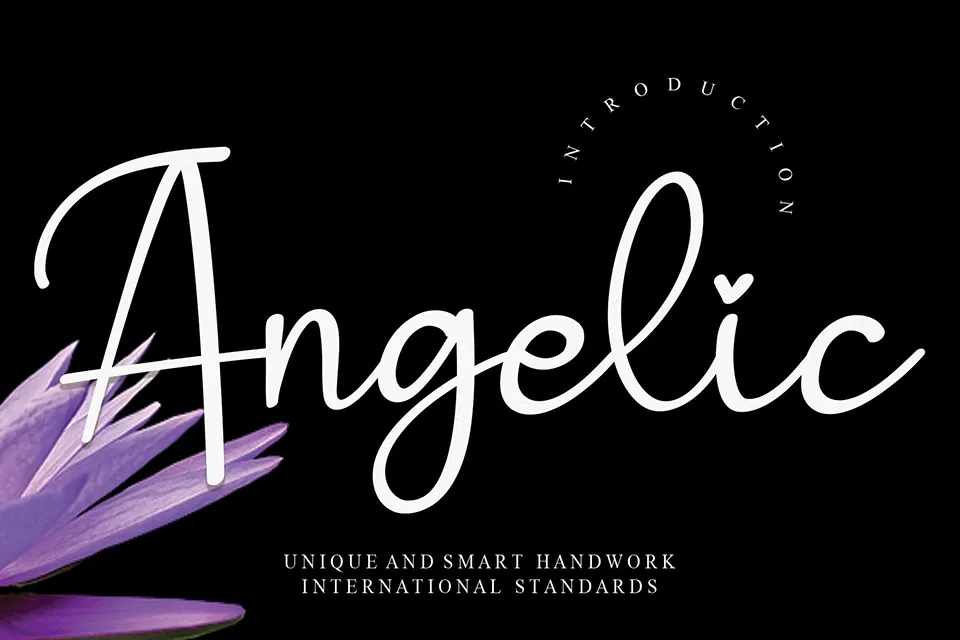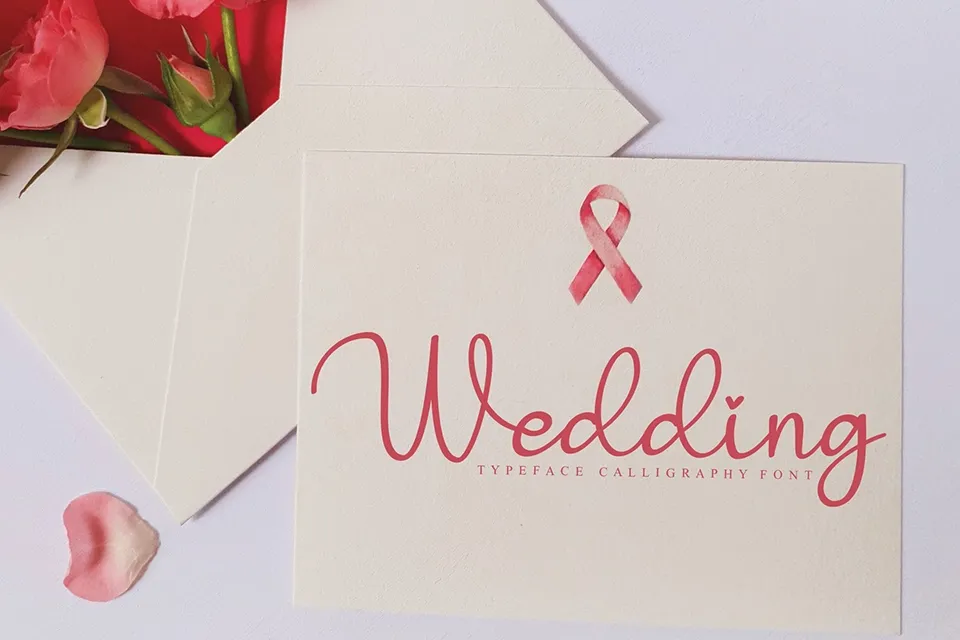
Angelic Handwritten Font
The Angelic Handwritten Font is a swirly and elegant script typeface that brings a natural, stylish flair to any project. Perfectly balanced and varied, it’s ideal for books, magazines, invitations, marketing materials, branding, packaging, websites, posters, logos, titles, and more. With graceful curves and impeccable letterforms, this font adds a delightful, enchanting touch to both personal and commercial creative endeavors.